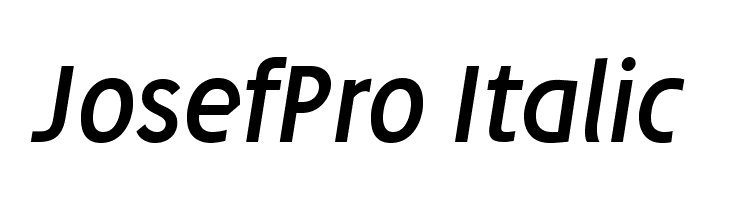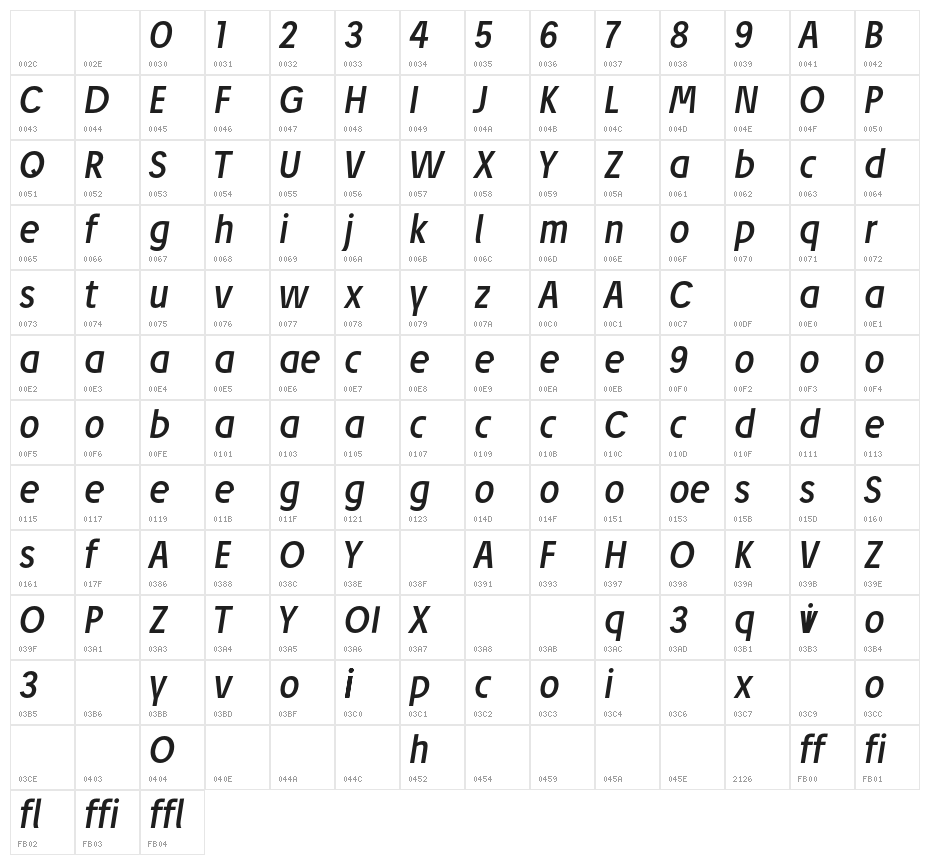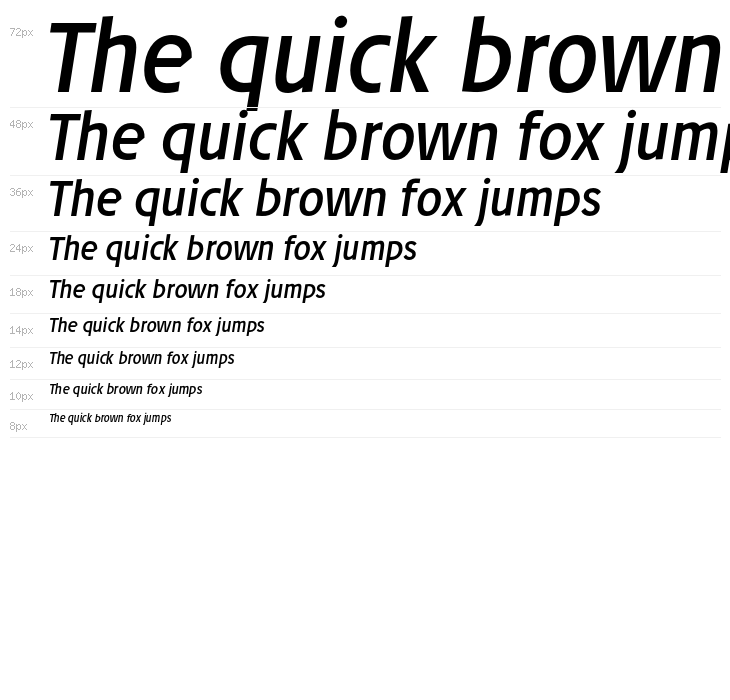
JosefPro-Italic Font
JosefPro-Italic Description
This font exhibits a sleek, modern design with a slight italic slant, giving it a dynamic and forward-moving appearance. The characters are clean and well-defined, with a consistent stroke width that maintains readability across various sizes. The uppercase letters are bold and commanding, while the lowercase letters are more subtle yet maintain a strong presence. The numerals are clear and distinct, making them suitable for both text and numerical data. The special characters are well-integrated, ensuring versatility in usage. Overall, this font combines elegance with functionality, making it suitable for a wide range of applications.